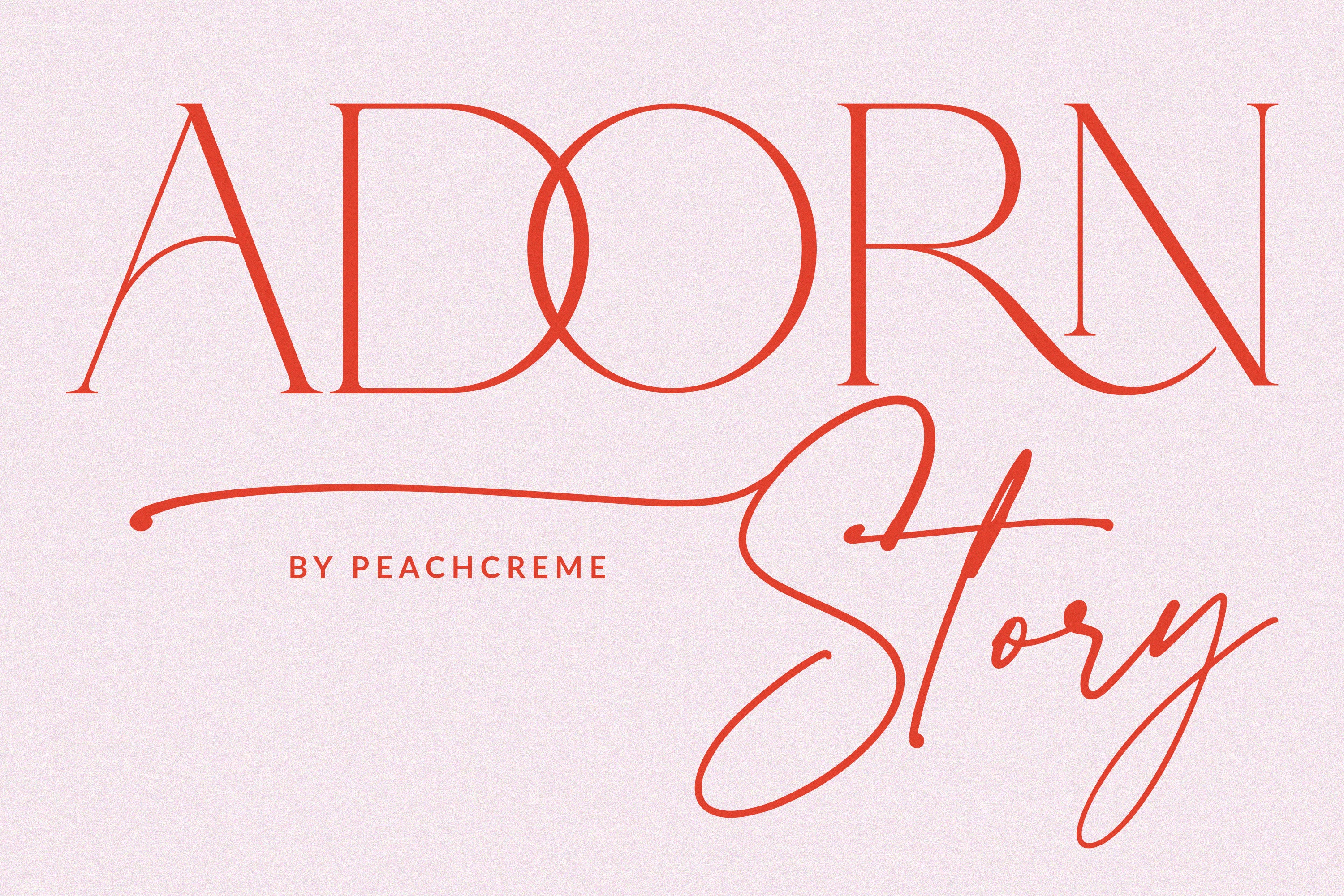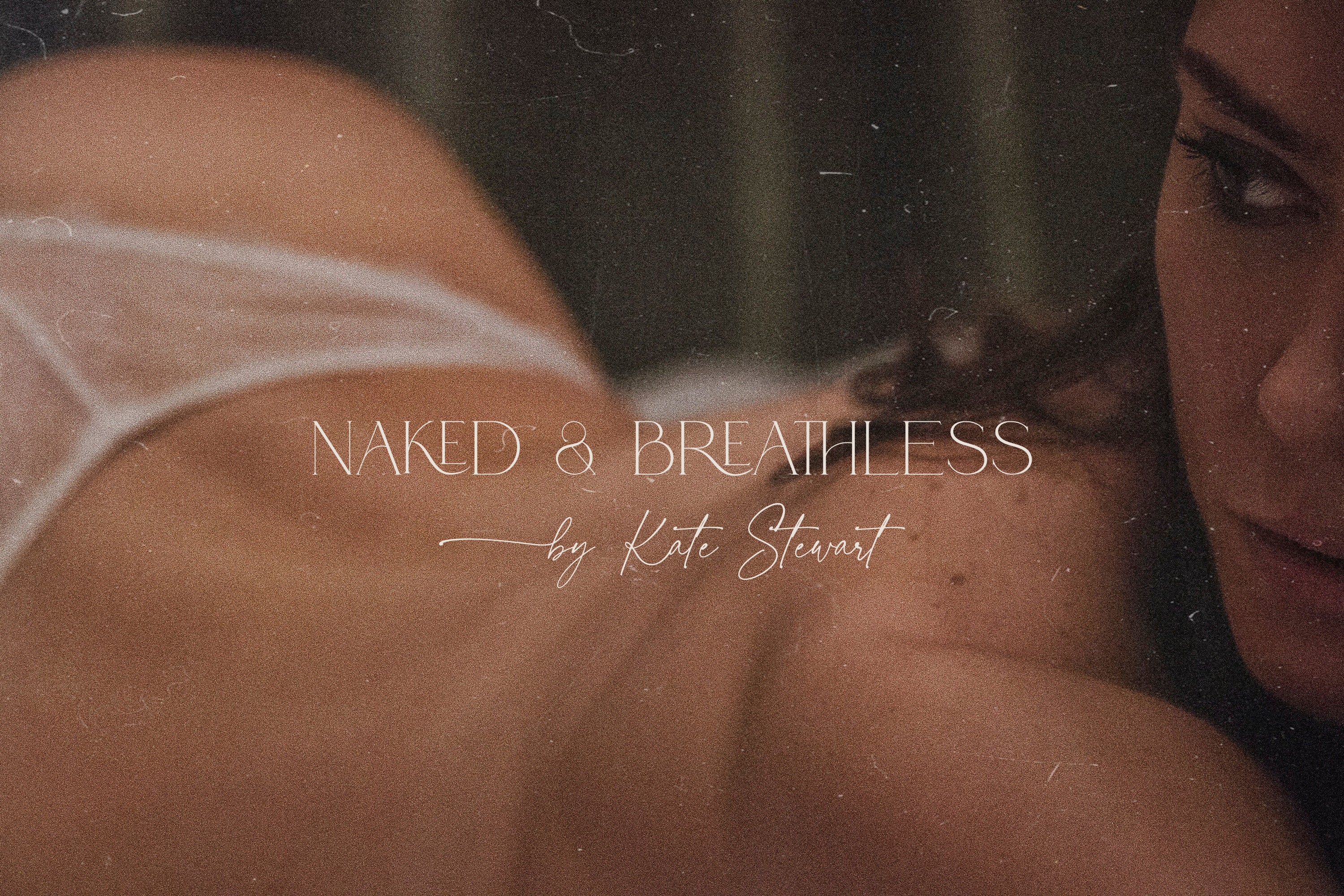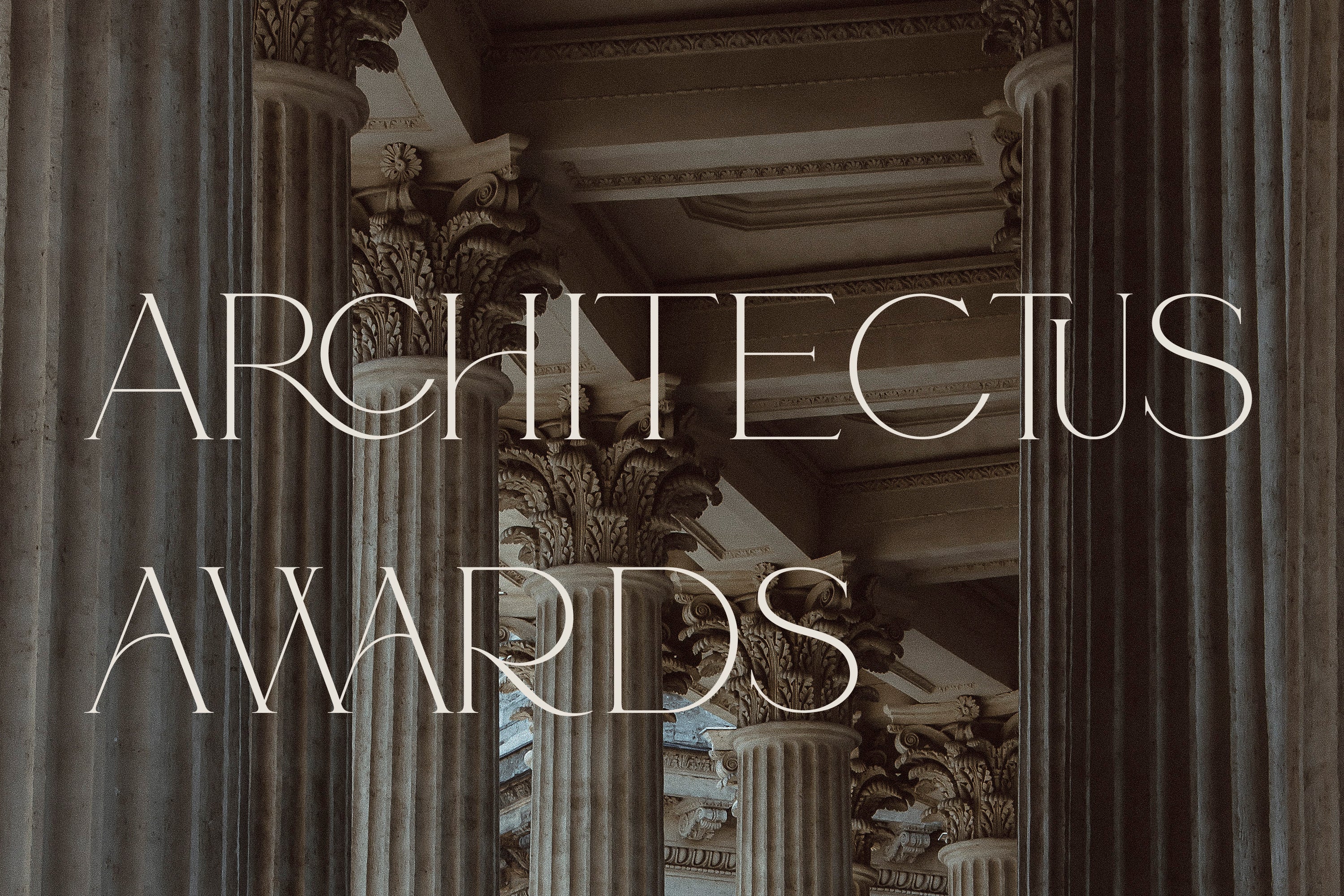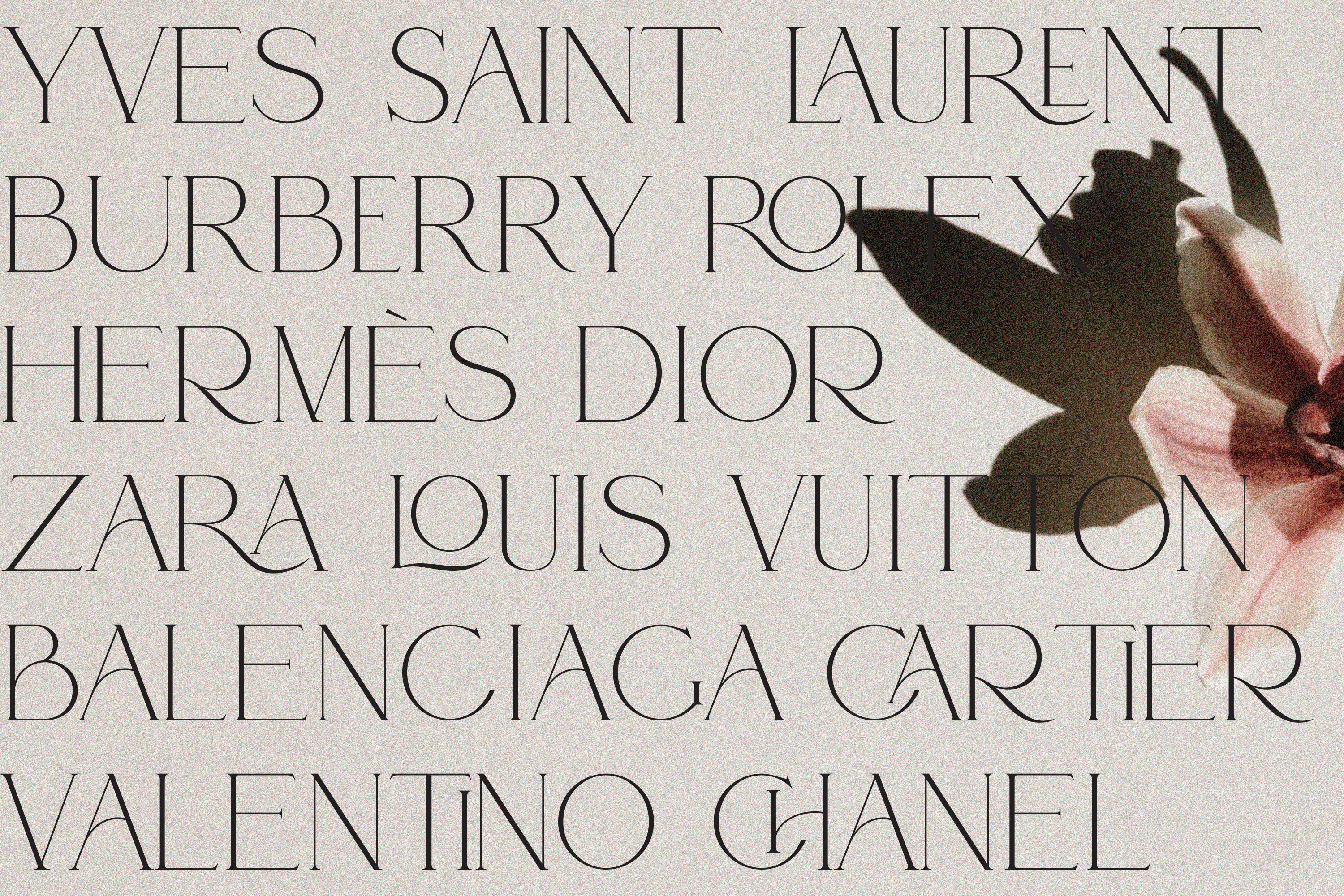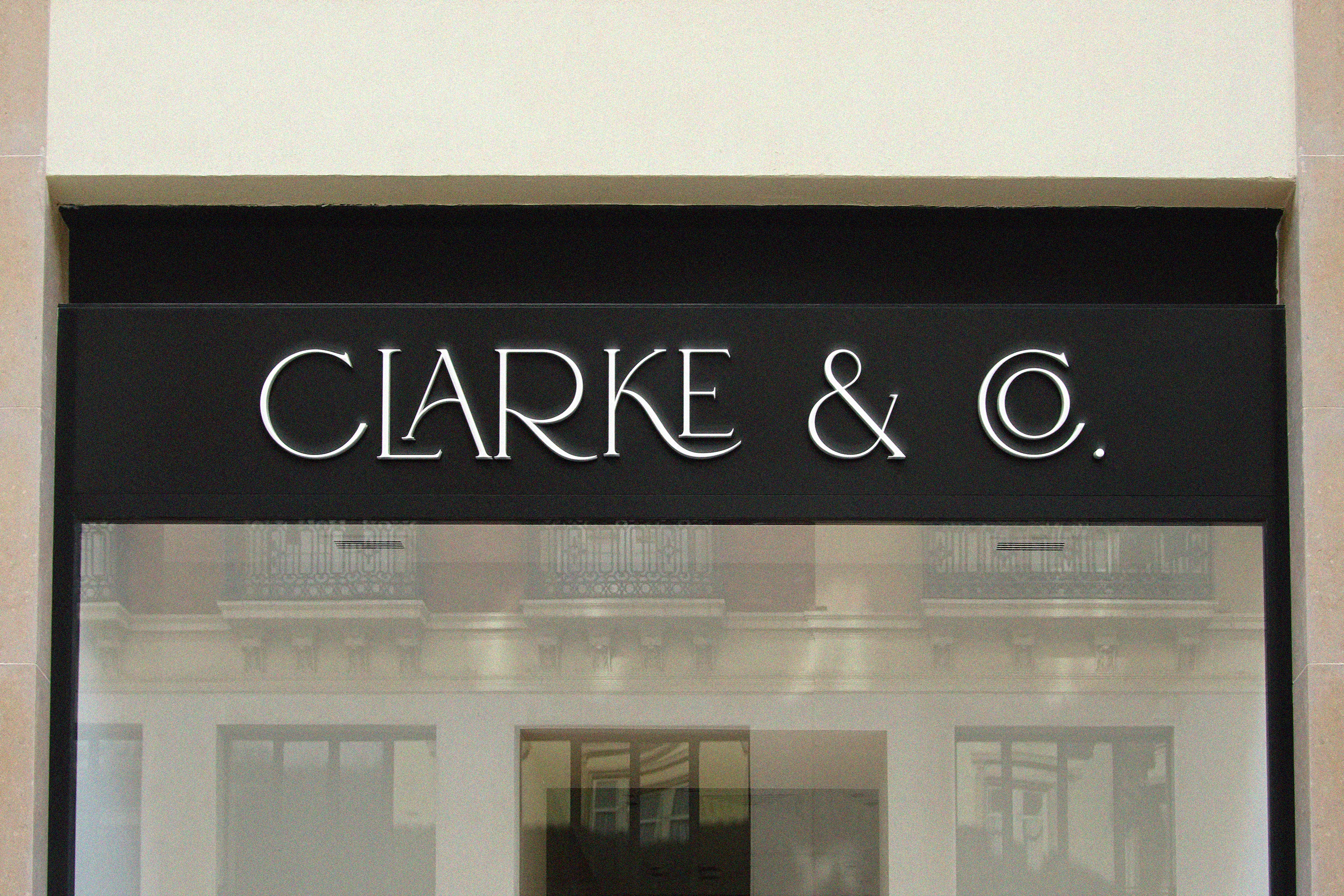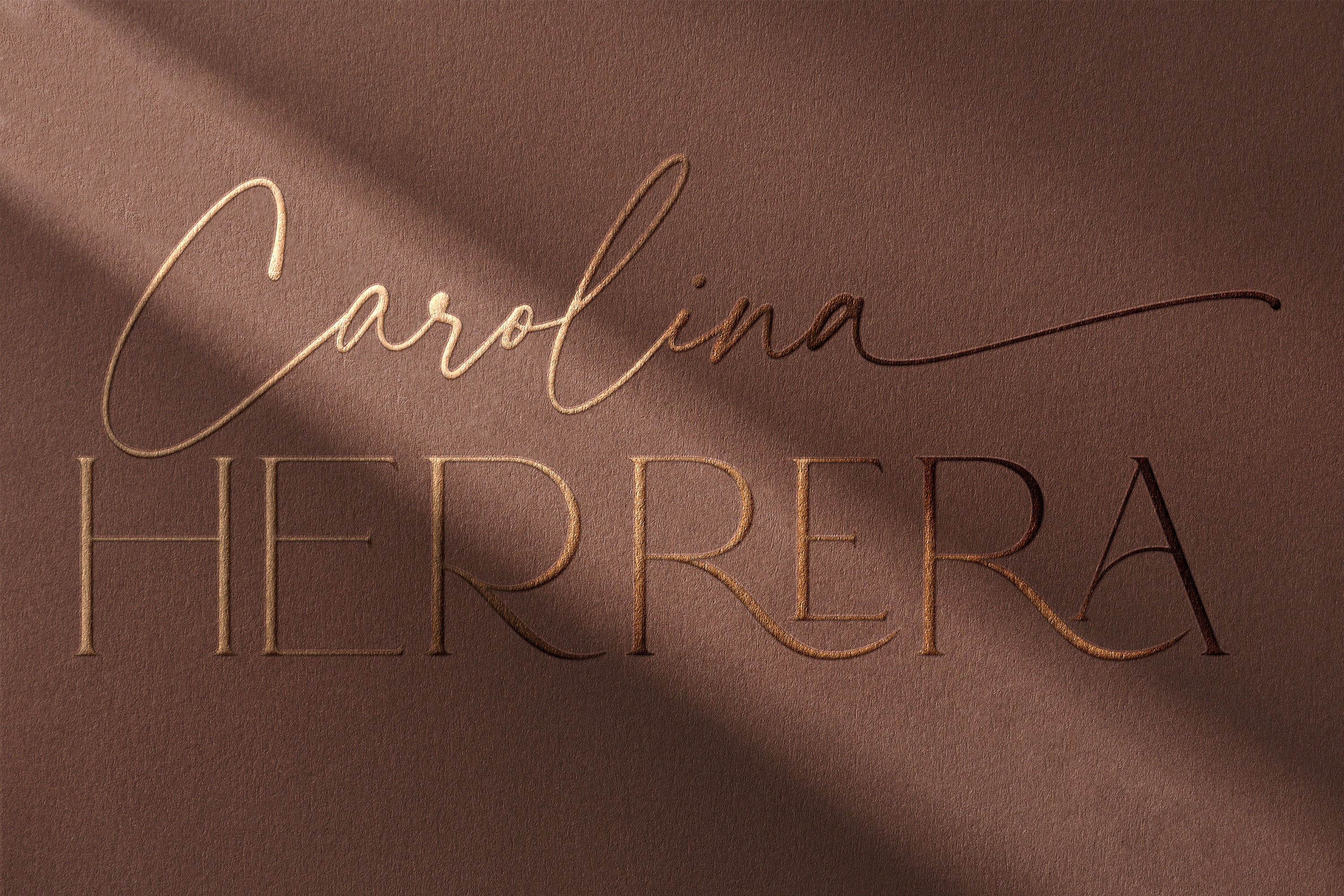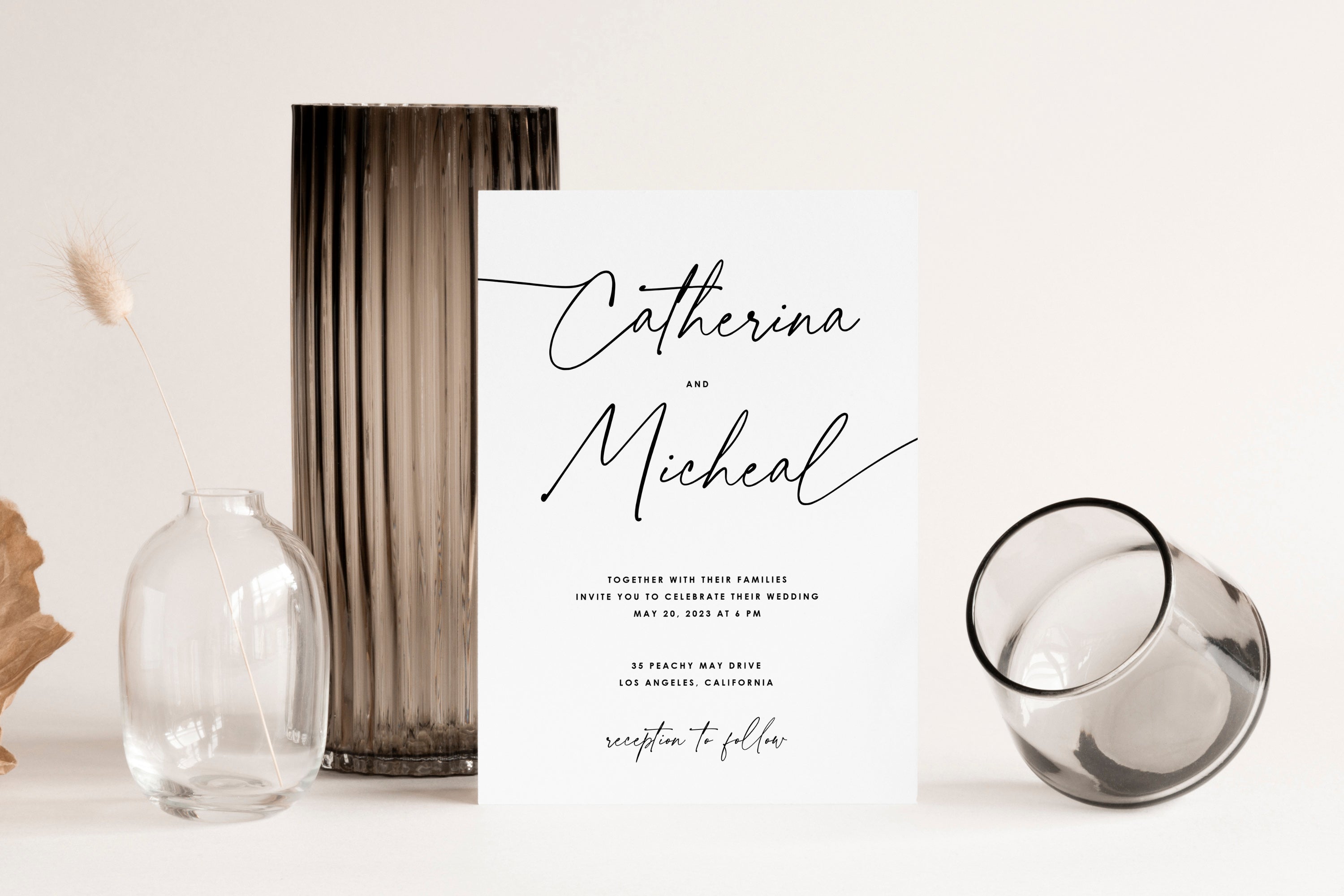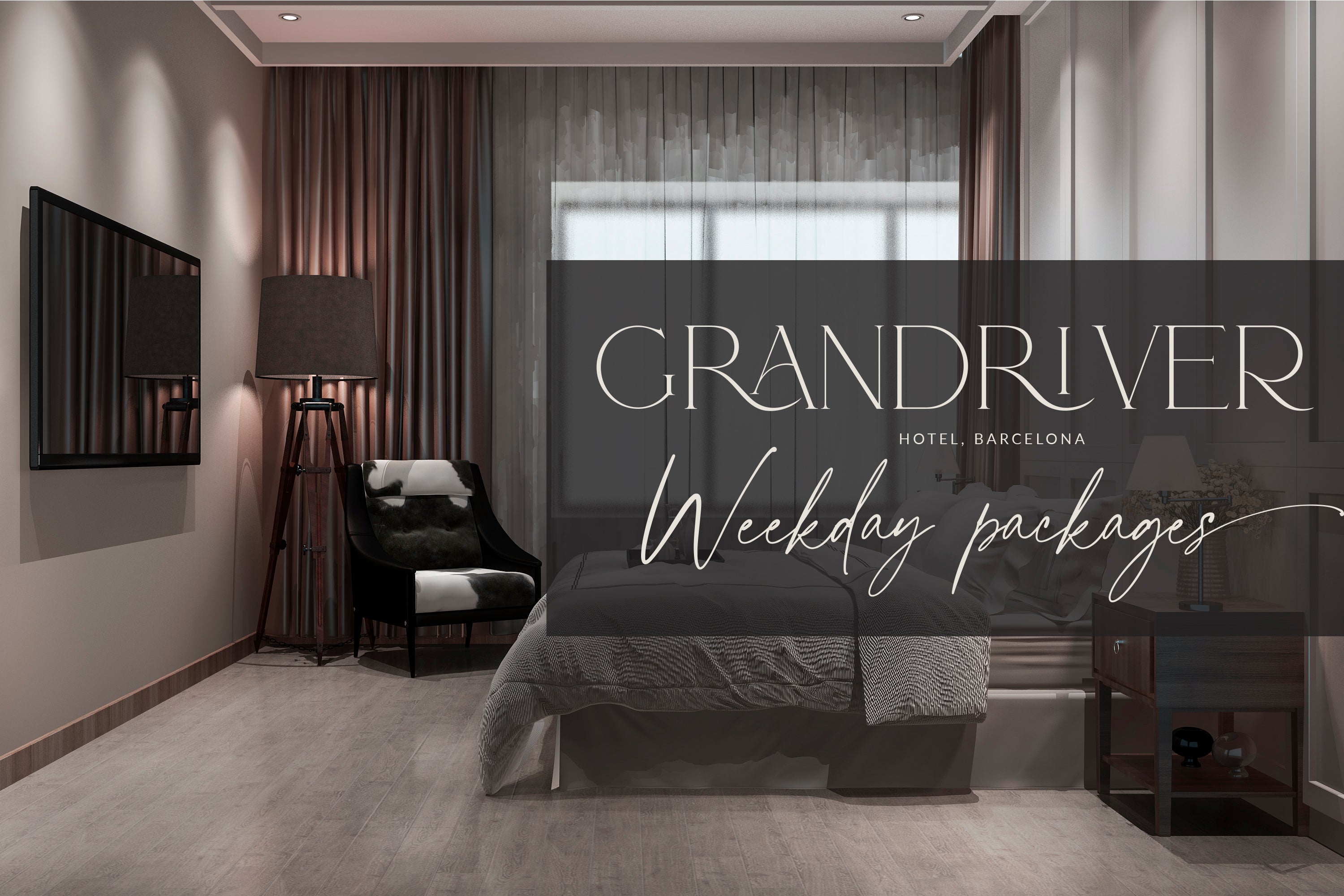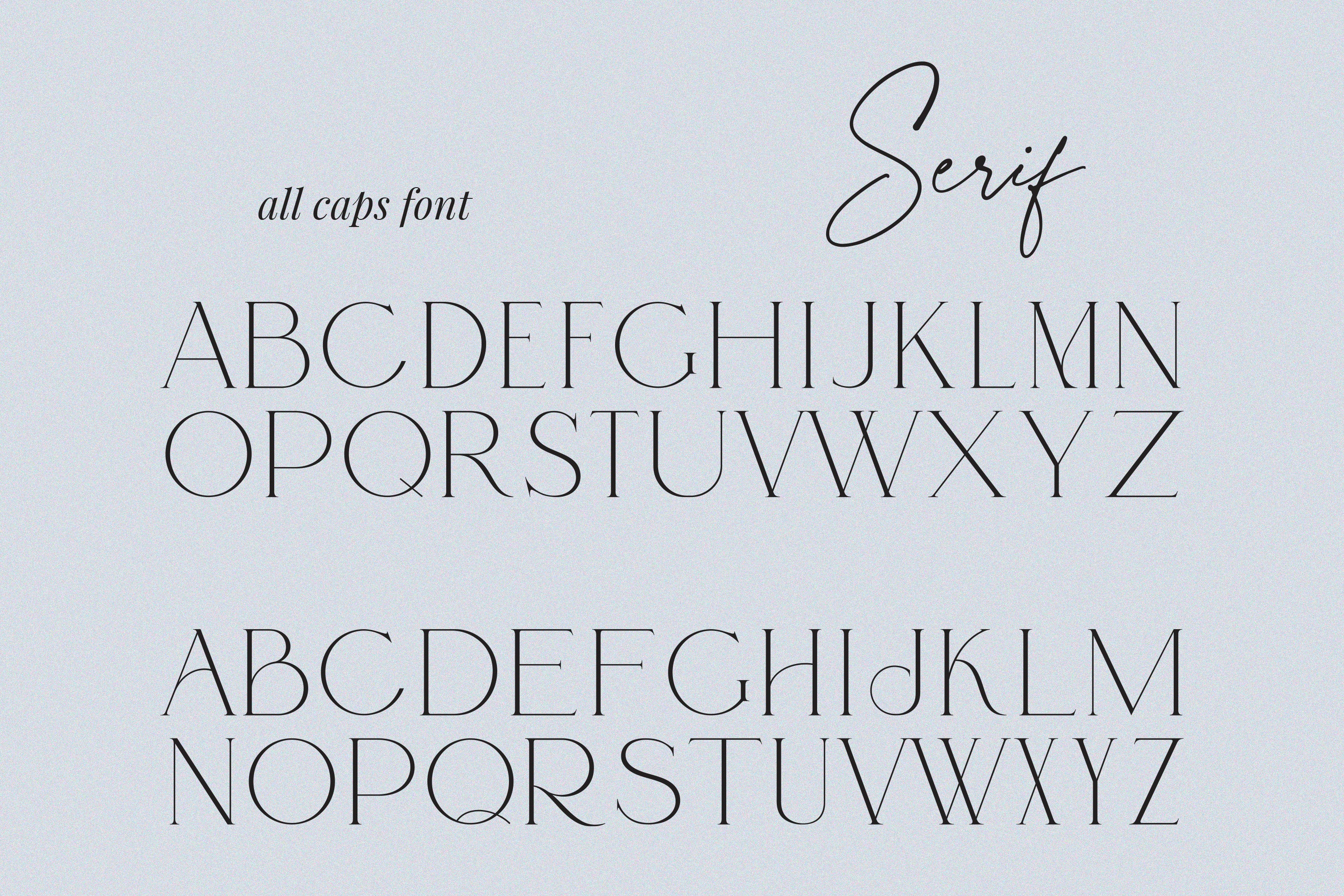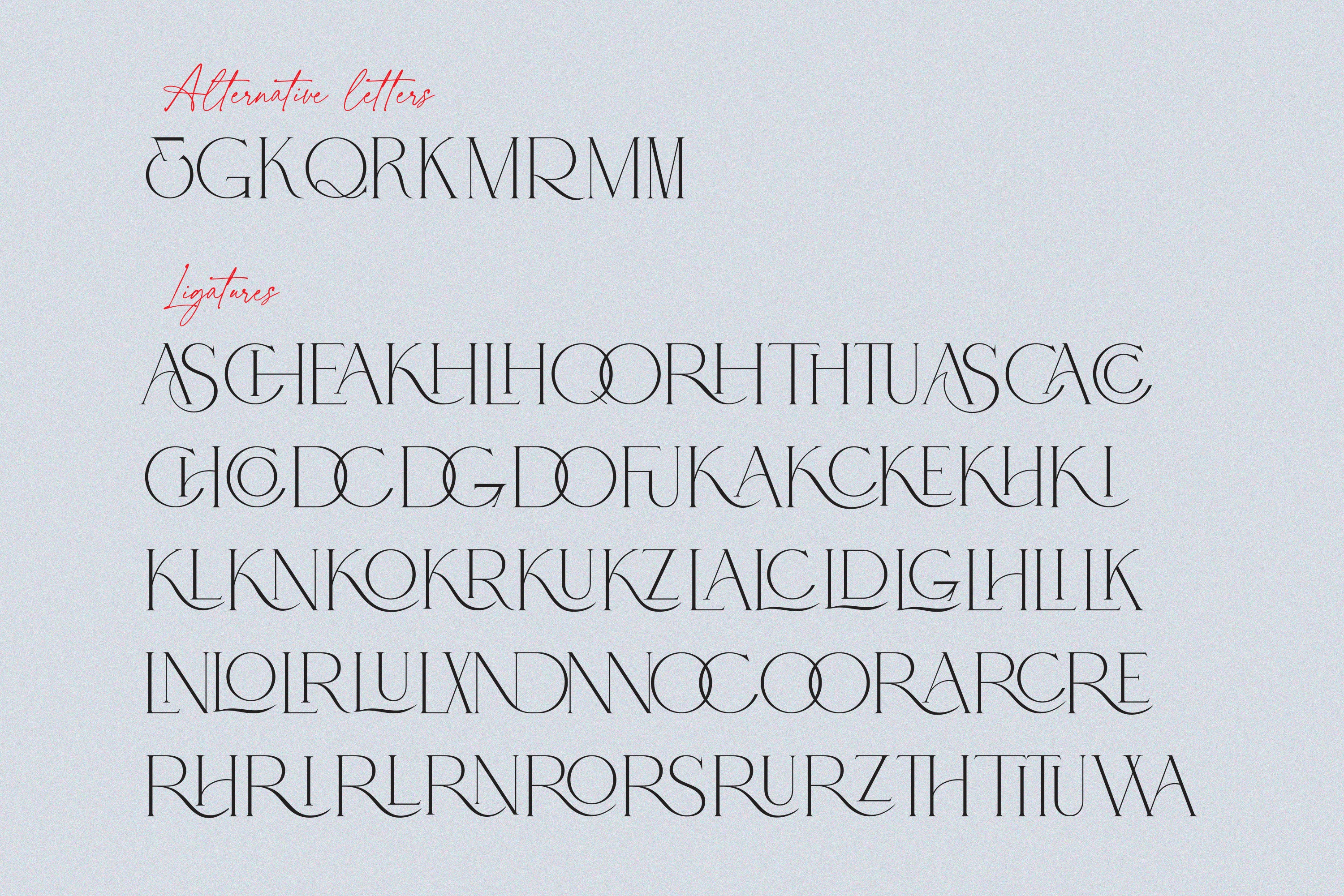
Adorn Story Font Duo
Meet our new ah-mazing font duo-Adorn Story๐Ÿ’–๐Ÿ’–๐Ÿ’–You would fell in love, if you are looking for beautiful, refined serif paired with voguish script. Serif font is rich with 61 ligatures, script font has beginning uppercase, beginning and ending lowercase swashes.ย  What you get: